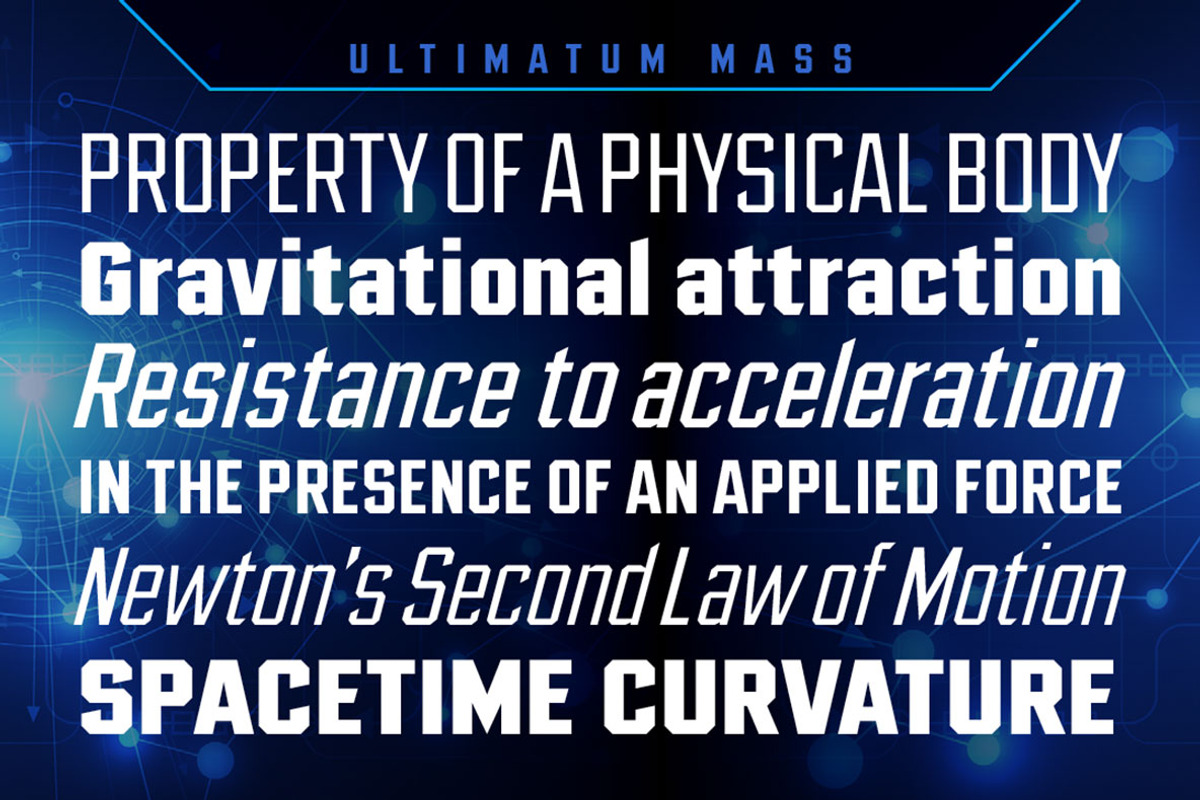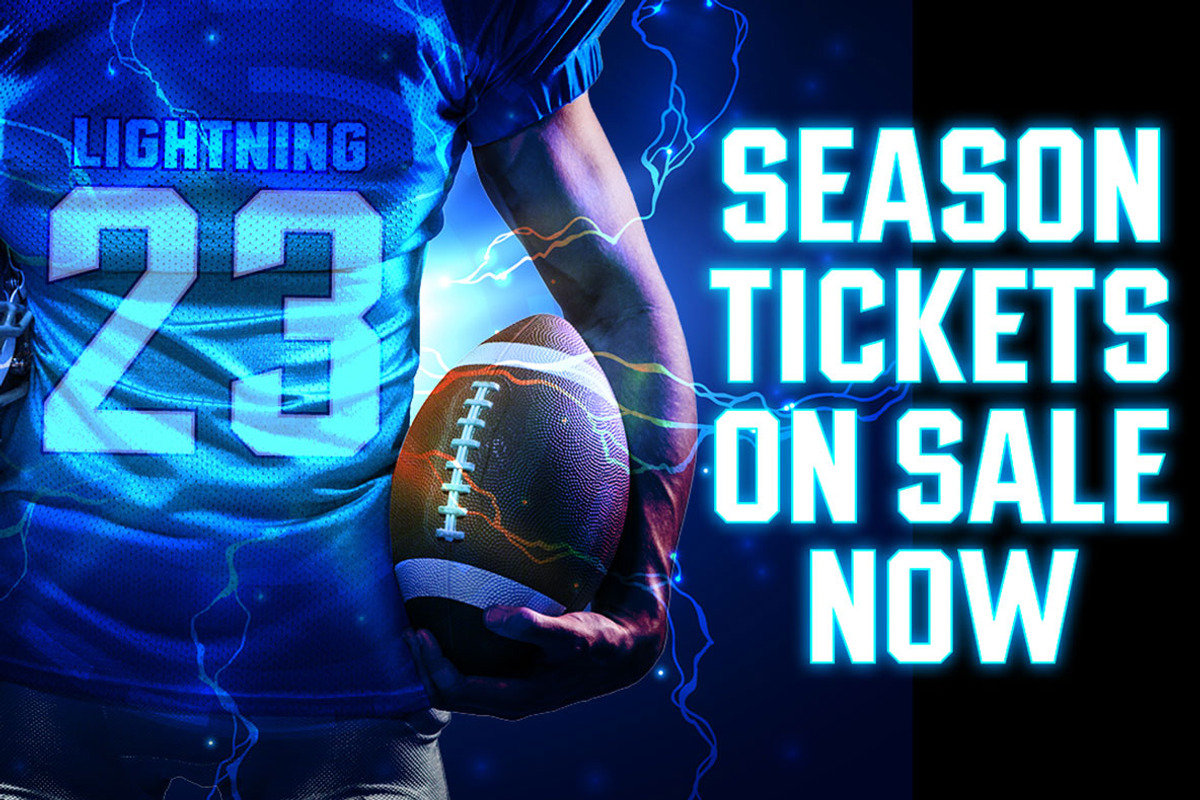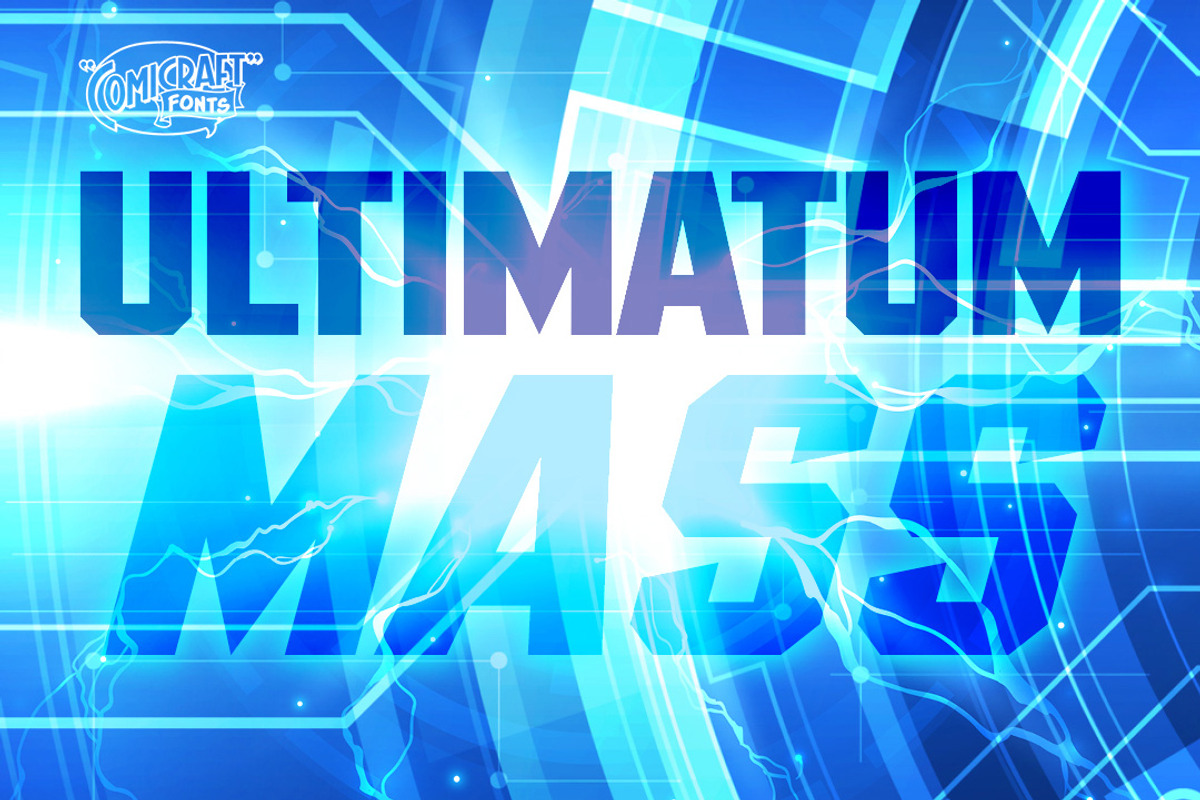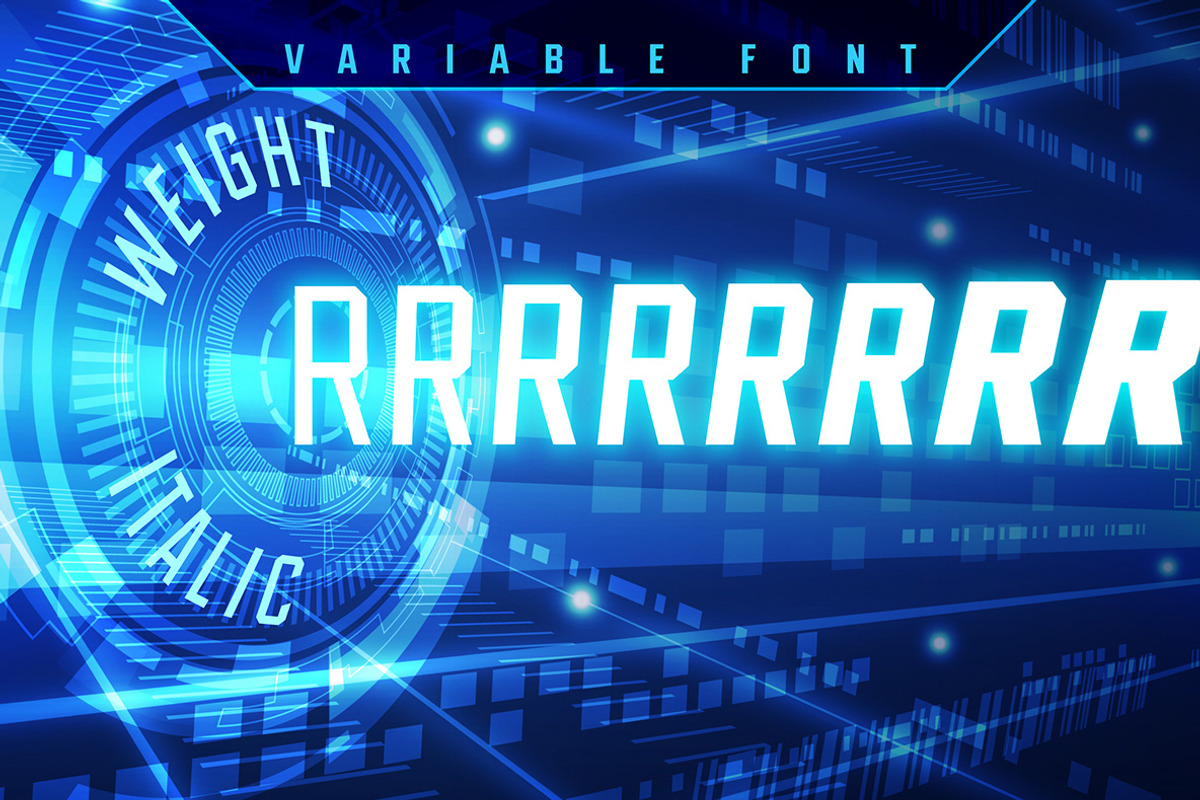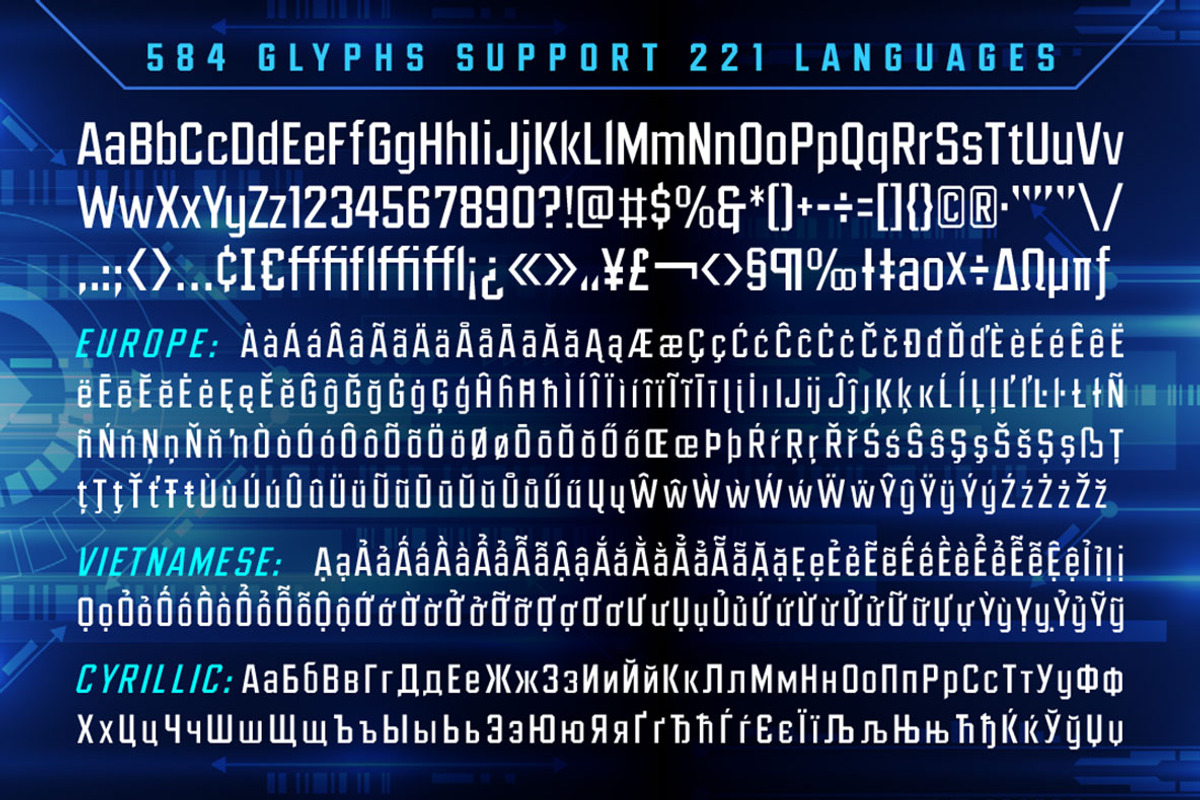
Ultimatum Mass industrial sport font
Comicraft's Mad Font Scientist John Roshell and Lead Lab Assistant Drewes McFarling have applied an Unstoppable Force to our Immovable Font ULTIMATUM, successfully splitting it into a family of three fonts!
Here’s the secret formula: MASS retains the dynamic details of the original with flat, angled corners; FORCE cooperates with your demands for a vertical slice of the action; and VELOCITY was tired of waiting for a compromise and cut right across its horizontals.
ULTIMATUM MASS features eight weights with support for 221 languages including Western & Central Europe, Vietnamese & Cyrillic. The Variable Font provides precise control of Weight & Italic slant.